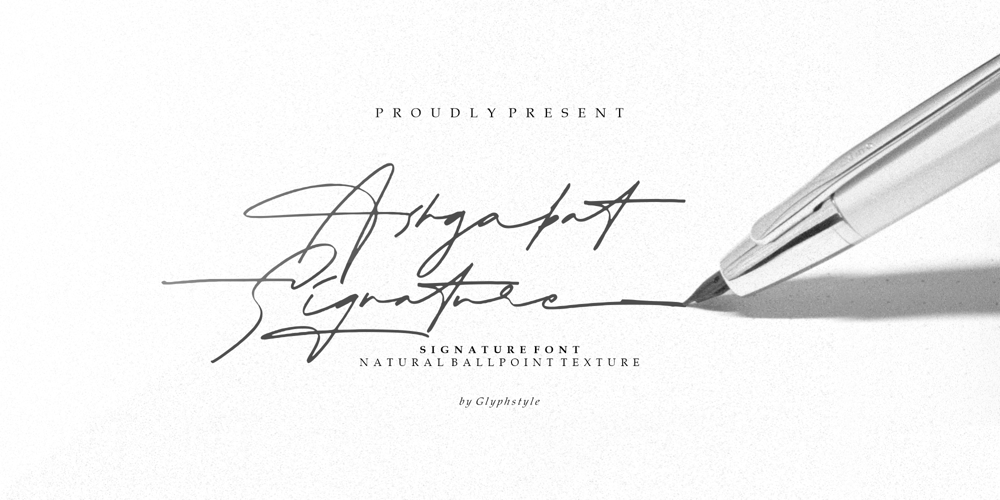
Ashgabat
Ashgabat font
Ashgabat Font Family was designed by Dimas Ardhi and published by GlyphStyle. Ashgabat contains 1 styles and family package options. Ashgabat is a signature style font that looks natural with a pen stroke-like texture. A bold and elegant looking font like the original signature style.Font feature Uppercase, Lowercase, Numerals & Punctuations, Stylistic Alt, Swash Ligature, Multilanguage